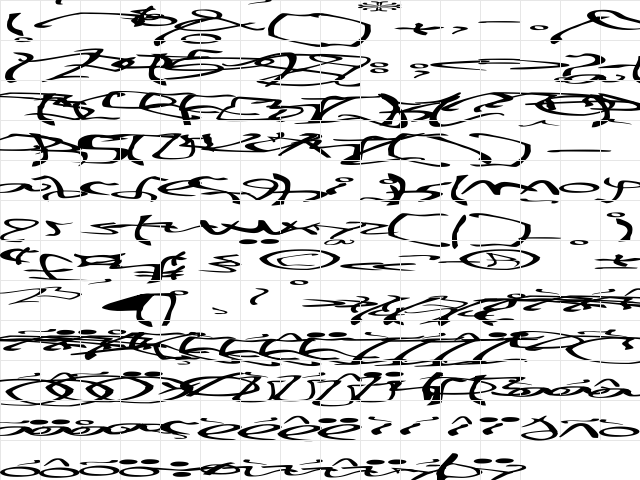
001 Stretched-Strung Very Wide Regular
Design Context for 001 Stretched-Strung Very Wide Typeface
001 Stretched-Strung Very Wide is a composed and adaptable typeface that performs quietly and consistently across a wide range of design contexts.